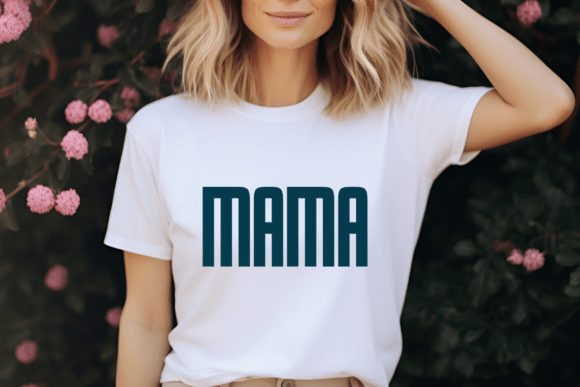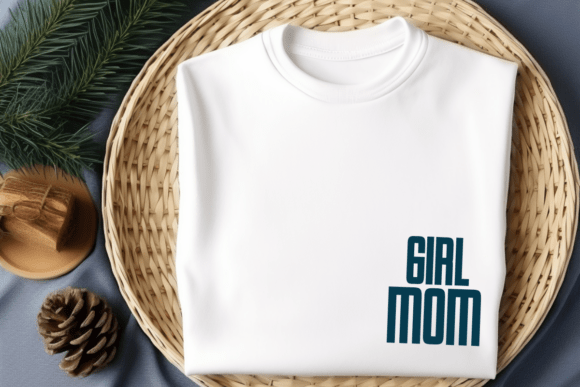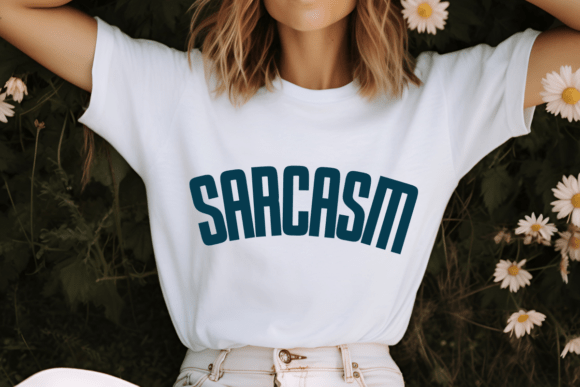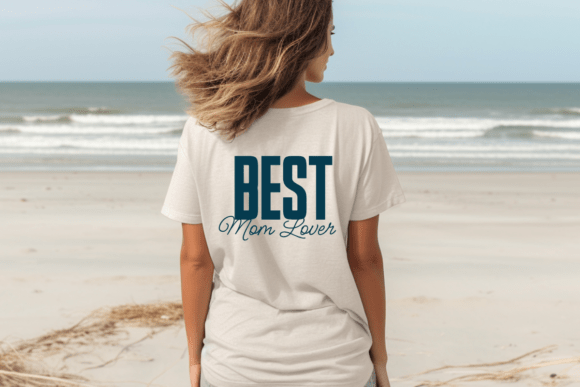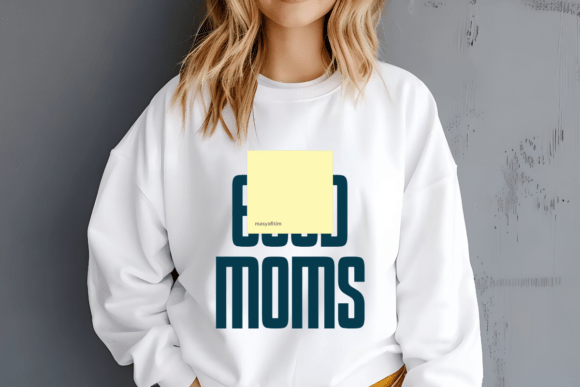
Introducing Header Font: The Perfect Blend of Strength and Elegance
In the world of typography, finding the right font can make all the difference in creating a lasting impression. For designers seeking a balance of strength and elegance, Header Font is an exceptional choice. This bold and sophisticated modern condensed sans serif font is meticulously crafted to provide a high-impact look that remains approachable and professional.
Design Features of Header Font
Header Font boasts tall, clean letterforms with subtly softened corners, giving it a unique and refined aesthetic. The font’s condensed design makes it perfect for headlines, titles, and statements that require a strong visual impact. The softened corners add a touch of warmth and approachability, preventing the font from feeling too harsh or aggressive.
Ideal Applications for Header Font
Header Font is an incredibly versatile typeface that can be used in a wide range of design applications. Some of the ideal uses for this font include:
- Print On Demand projects: Create statement t-shirts, typography posters, and modern tote bags that demand attention.
- Digital branding: Elevate your brand’s visual identity with a sleek and contemporary font that exudes professionalism.
- Tech logos: Perfect for tech companies, startups, and innovative businesses that require a bold and modern visual presence.
- Sleek product packaging: Make your product stand out on store shelves with a font that commands attention and conveys a sense of sophistication.
- Cinematic title sequences: Add a touch of glamour and sophistication to your film or video title sequences.
- Minimalist lifestyle brands: Ideal for brands that value simplicity, elegance, and a strong visual presence.
Why Choose Header Font?
With so many fonts available, why choose Header Font? Here are just a few reasons why designers and crafters love this typeface:
- Unique blend of strength and elegance: Header Font offers a perfect balance of boldness and sophistication, making it suitable for a wide range of design applications.
- High-impact look: The font’s condensed design and clean letterforms create a visually striking effect that demands attention.
- Approachable and professional: The softened corners and elegant design make Header Font suitable for both formal and informal design projects.
- Versatility: Use Header Font for both print and digital applications, from t-shirts to tech logos and product packaging.
Tips for Using Header Font Effectively
To get the most out of Header Font, consider the following tips:
- Experiment with font sizes: Header Font is designed to make a statement, so don’t be afraid to experiment with different font sizes to achieve the desired impact.
- Pair with complementary fonts: Combine Header Font with other fonts to create a unique and visually appealing typography hierarchy.
- Use for headlines and titles: Take advantage of Header Font’s bold and condensed design by using it for headlines, titles, and statements that require a strong visual presence.
In conclusion, Header Font is an exceptional choice for designers and crafters seeking a bold and sophisticated modern condensed sans serif font. With its unique blend of strength and elegance, this font is perfect for a wide range of design applications, from Print On Demand projects to digital branding and tech logos. By incorporating Header Font into your design projects, you’ll be able to create a lasting impression and elevate your visual identity to the next level.